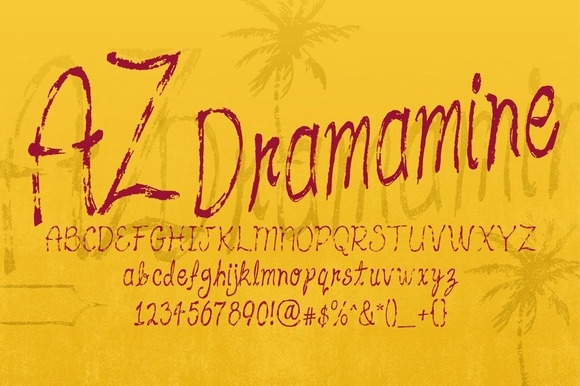
AZ Dramamine Font
About AZ Dramamine Font
A font inspired on A&F shirt designs. It has an worn and antique feeling to it which is great for retro and vintage designs.